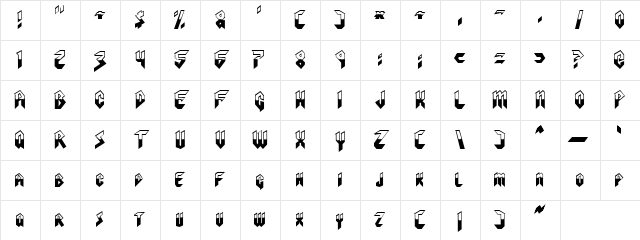
Visionaries Normal Free Font
Visionaries Normal
Design Context for Visionaries
Visionaries is a composed and adaptable typeface that performs quietly and consistently across a wide range of design contexts.
Pro Tip: Use Visionaries in both headline and body roles to test its range before committing to a single application.